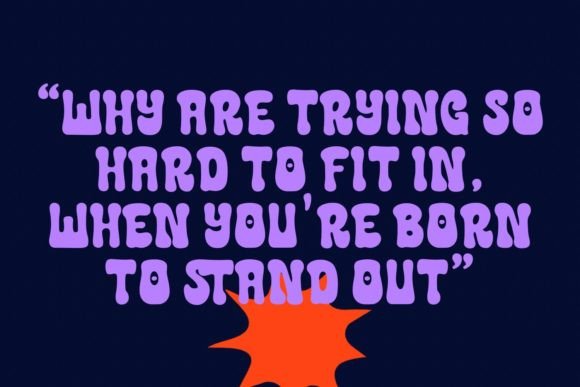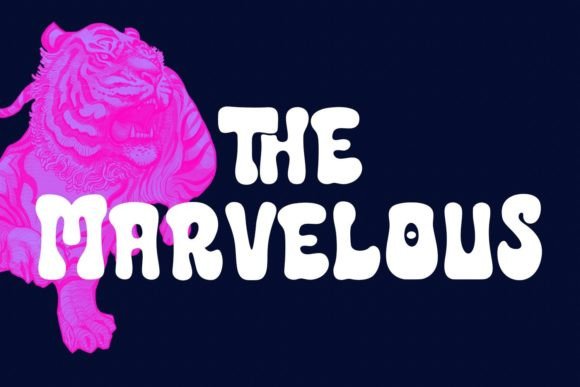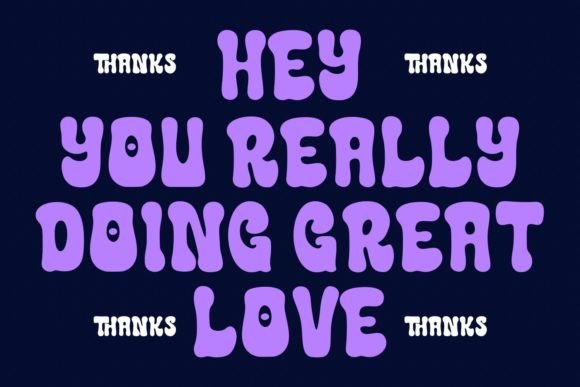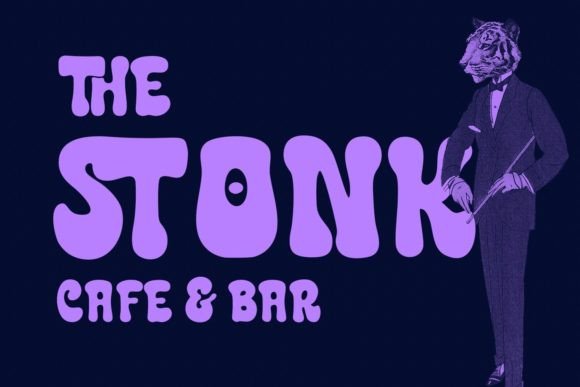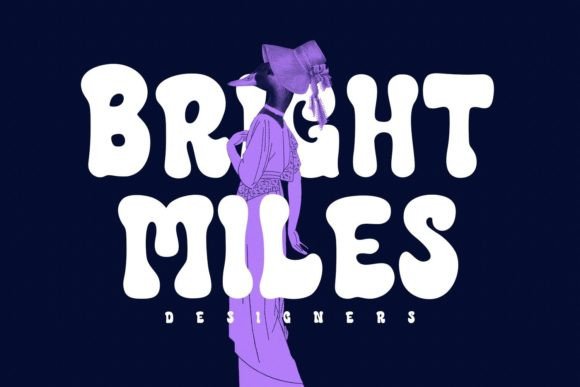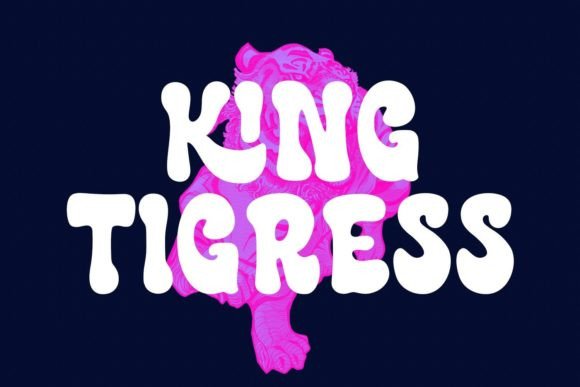
Introduction to Rokish Font
Rokish is an expressive freestyle handwritten display font.
Its unique groovy vibe will give your projects that extra retro touch .
Key Features of Rokish Font